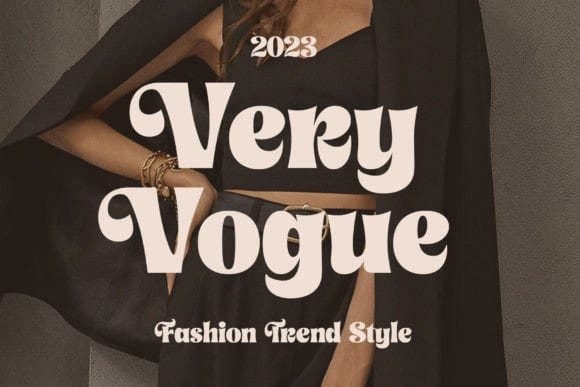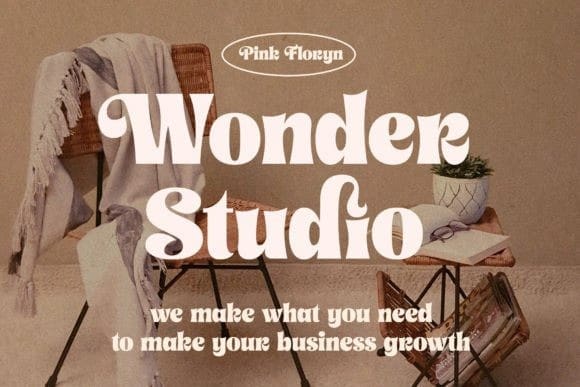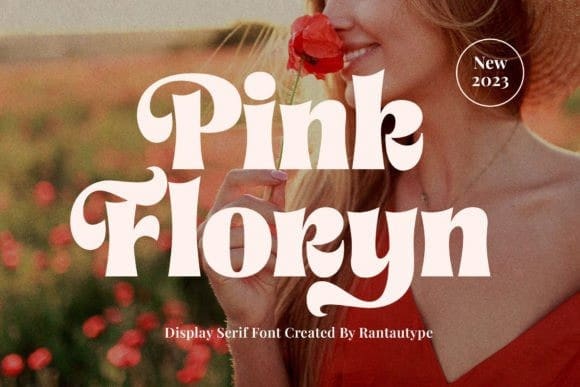
Pink Floryn Font
Pink Floryn Font is a beautiful font with that bold curve that makes it look Unique, elegant, modern, and versatile. Pink Floryn is a beautiful choice for any creative endeavor, creating elegant, modern, chic, lifestyle designs such as logos, titles, covers, branding, display and magazine, and more.